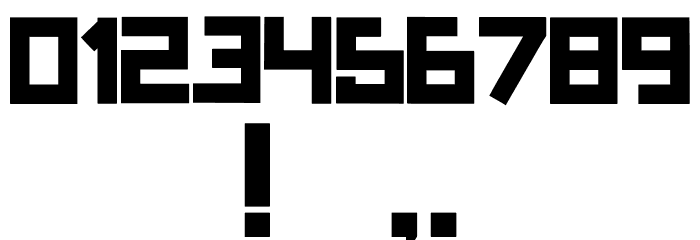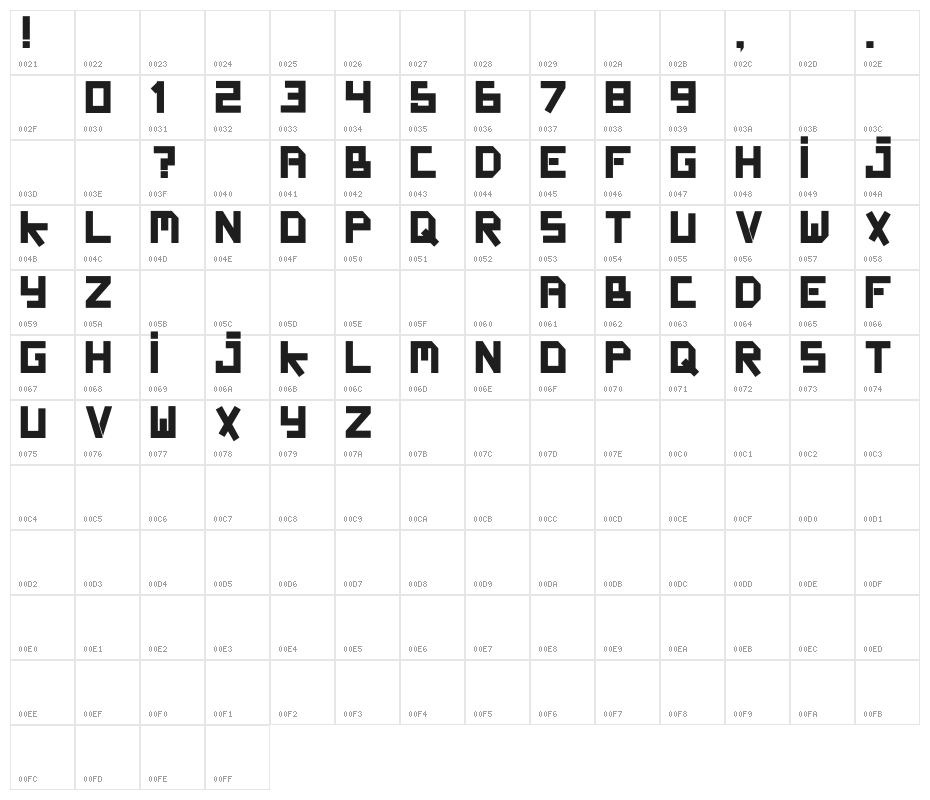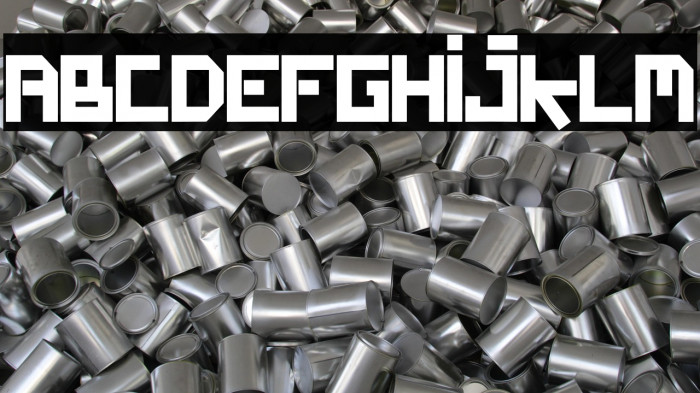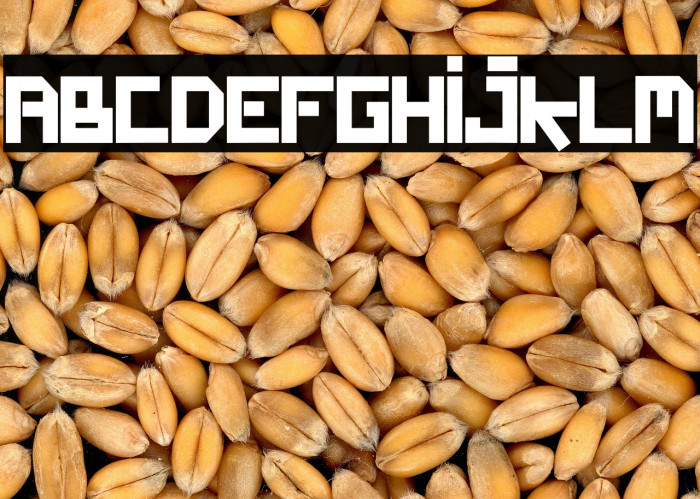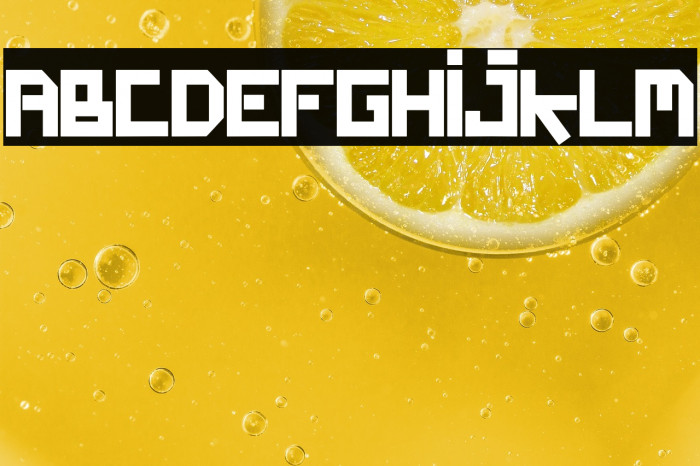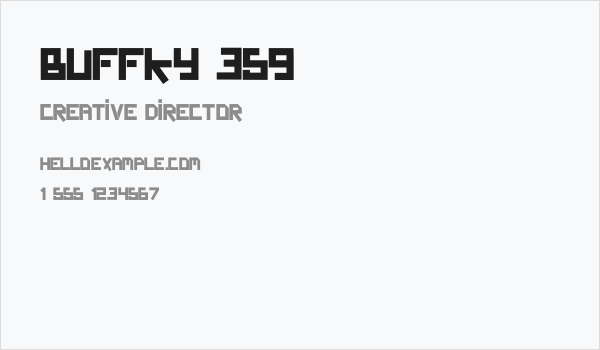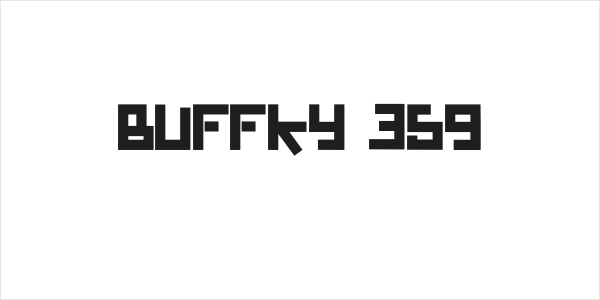
BUFFKY 359 Font
BUFFKY 359 Description
This font features a bold, geometric design with sharp angles and a blocky appearance. Each character is constructed with a consistent thickness, giving it a uniform and cohesive look. The uppercase letters are particularly striking, with a futuristic and industrial feel. The numbers and special characters maintain the same bold style, ensuring a seamless integration across different uses. The overall design is highly legible and impactful, making it suitable for attention-grabbing applications.